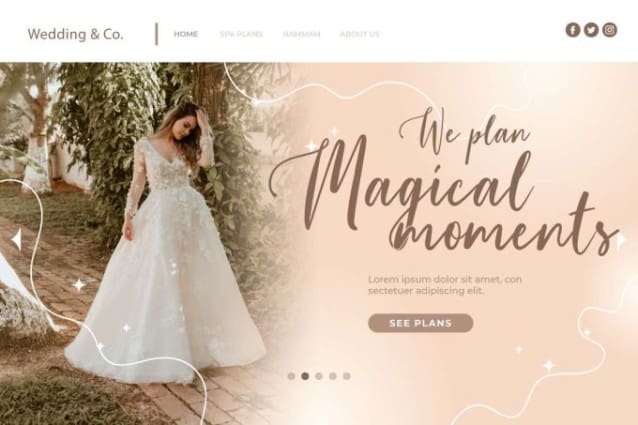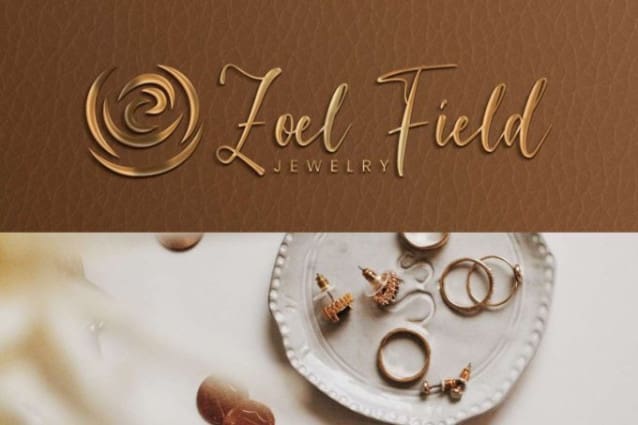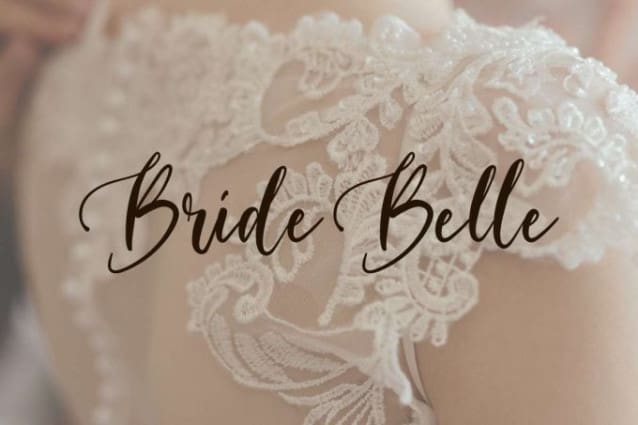
Bride Belle Font
Bride Belle Font is a beautiful calligraphic script font with long back tails and “formal” style. This font is as beautiful as a bride getting married with a wave line like their gown. It will be good for many designs, such as brochure, cover, custom design, gift box, invitation, label, poster, product packaging, quote, screen printing, stationery, website, and more!
Bride Belle Font includes full set of Uppercase and Lowercase Basic Characters, Numerals, Punctuation, and Symbol. This font also contain Ligature characters that will be suitable for many industries, such as advertisement, boutique, café, event or wedding organizer, fashion, furniture, handicraft, jewelry, restaurant, resort, spa and salon, etc.